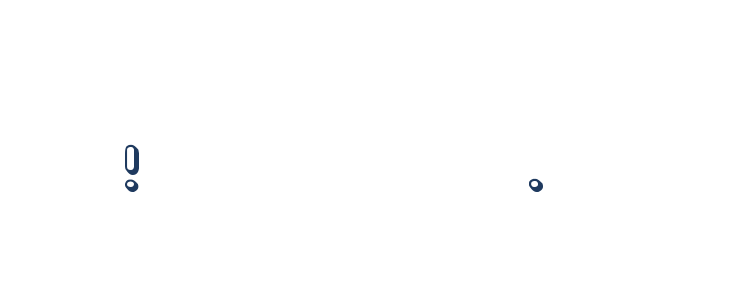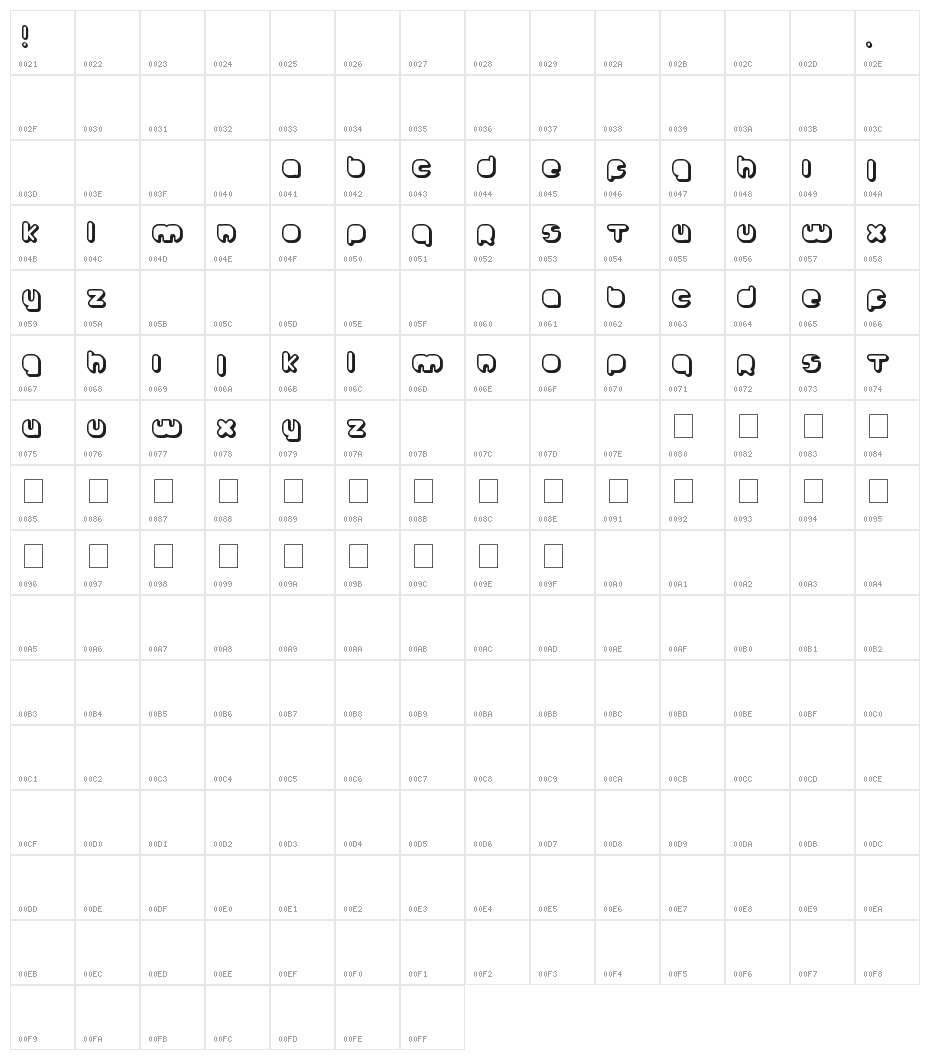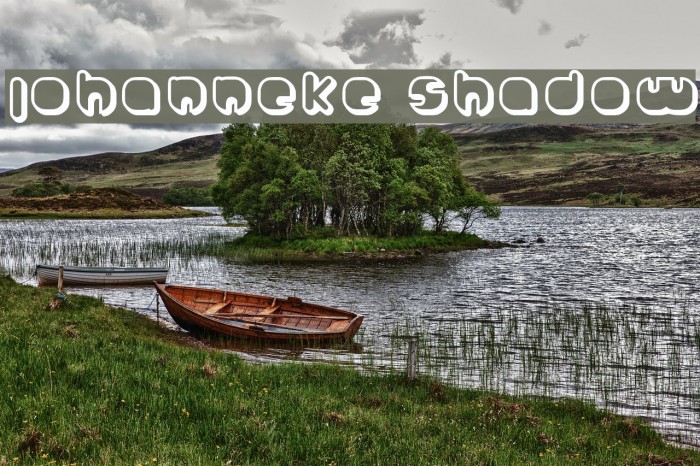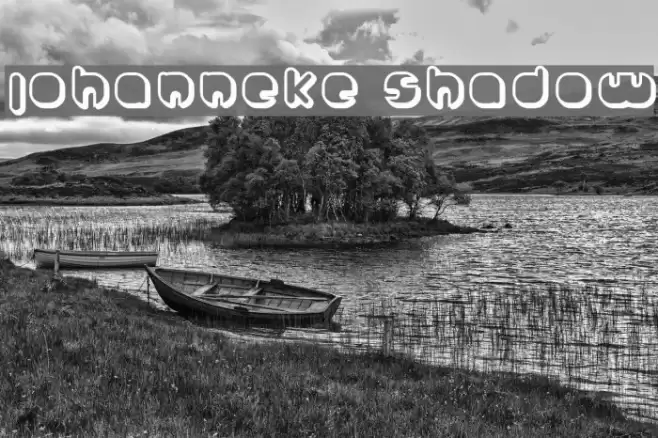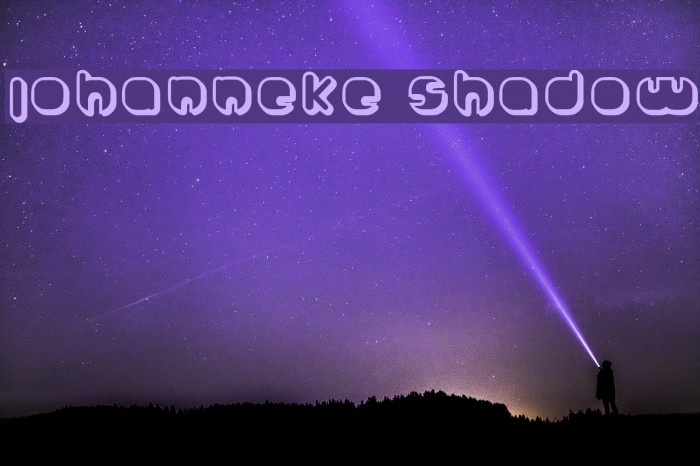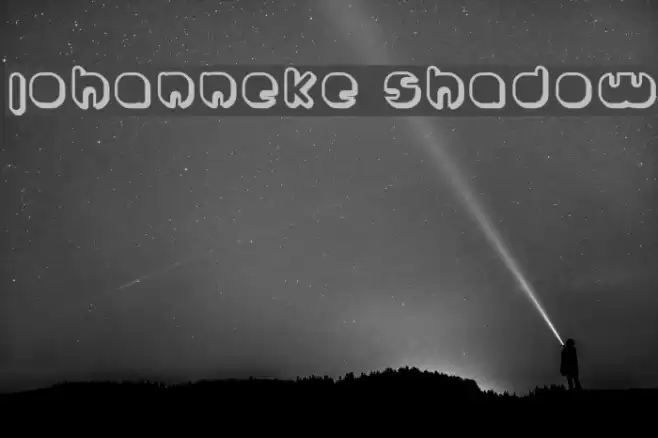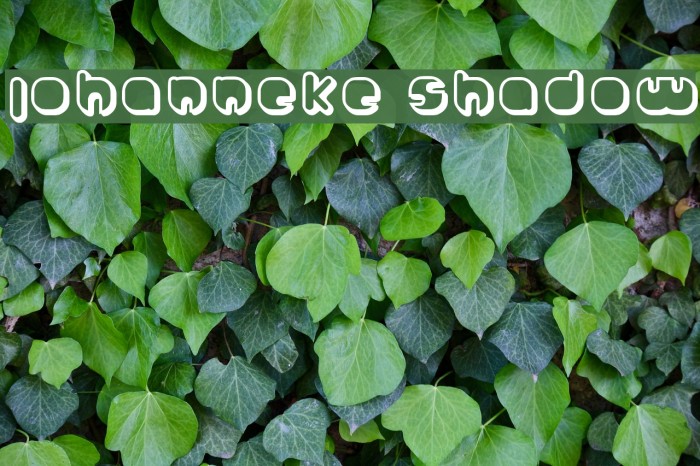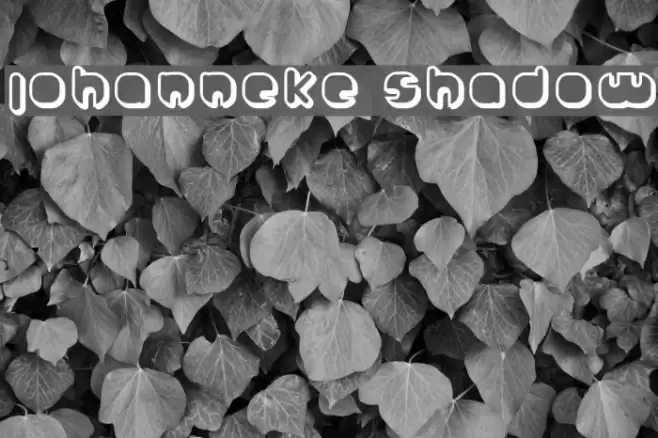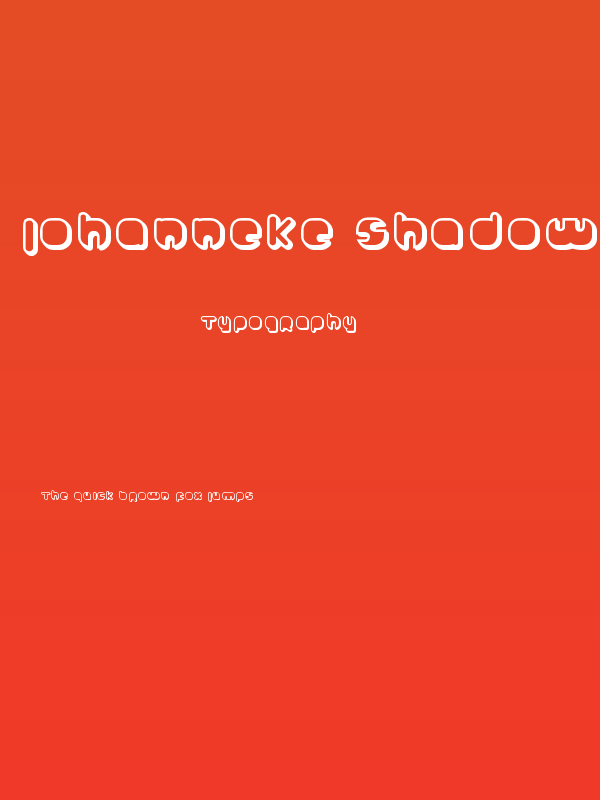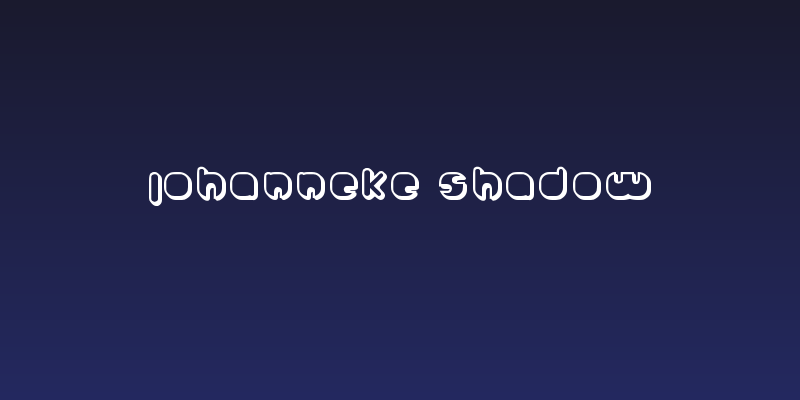
Johanneke Shadow Font
Johanneke Shadow Description
This font features a playful and modern design with a shadow effect that gives it a three-dimensional appearance. The characters are rounded and bold, with a consistent thickness throughout. The shadow adds depth, making the letters stand out against the background. The style is unique and eye-catching, suitable for creative projects that require a fun and engaging look. The font maintains a uniform width, ensuring readability while adding a touch of whimsy. Its distinct appearance makes it ideal for headlines, posters, and branding materials where a bold statement is desired.
| Proposed Projects | Ideal for use in posters, branding, children's books, and creative advertising campaigns. |